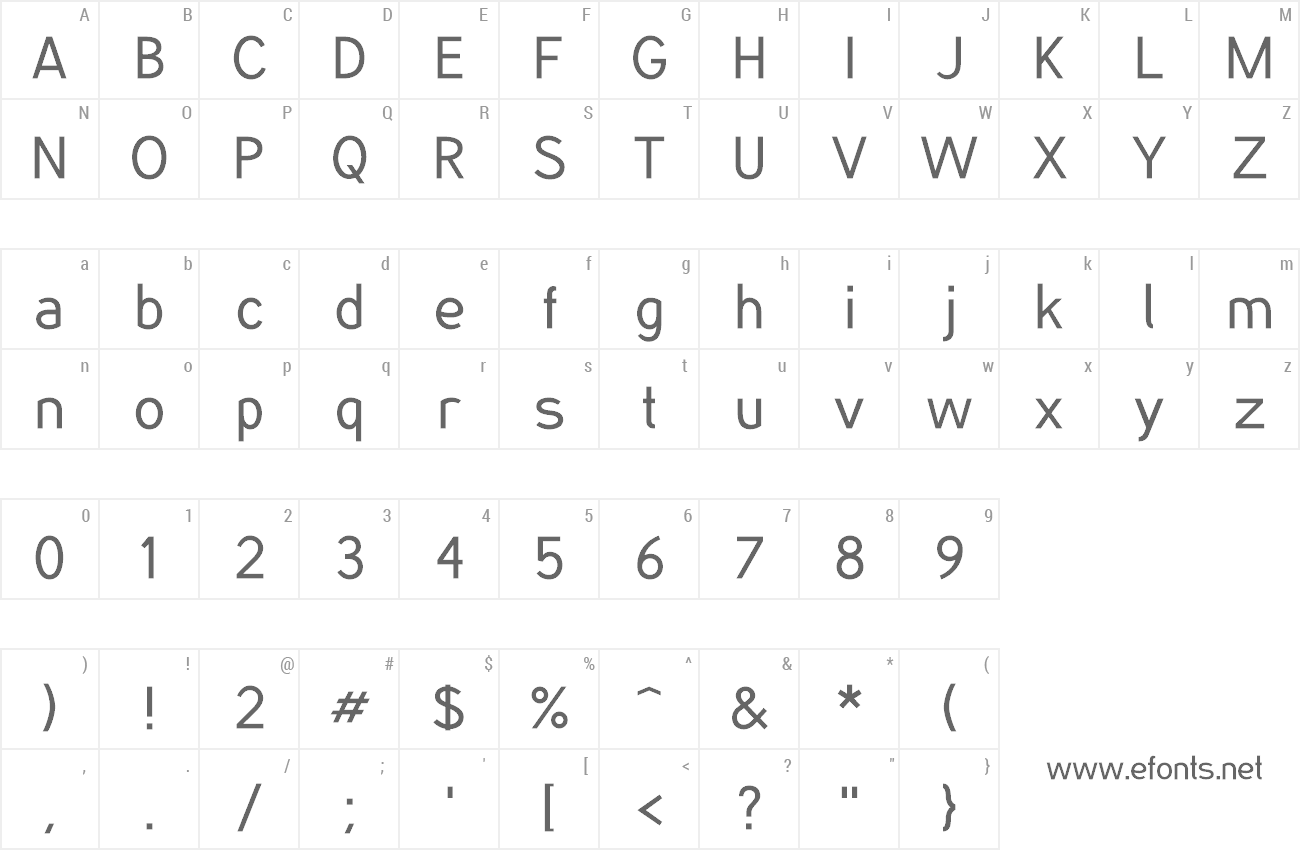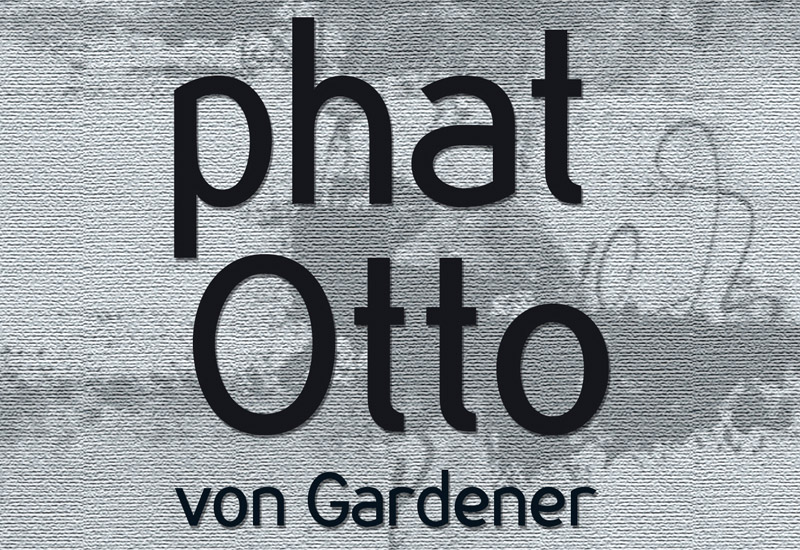
Preview and download Phat Otto Font. Created by Lukas Schiltknecht in Basic Sans serif styles with Free for personal use license.
| Font name: | Phat Otto |
| Author: | Lukas Schiltknecht |
| Note by Lukas Schiltknecht | |
| Simple, readable, straight, strict. A nice Sans Serif. |